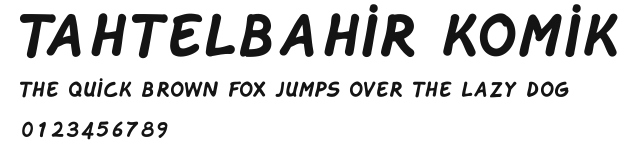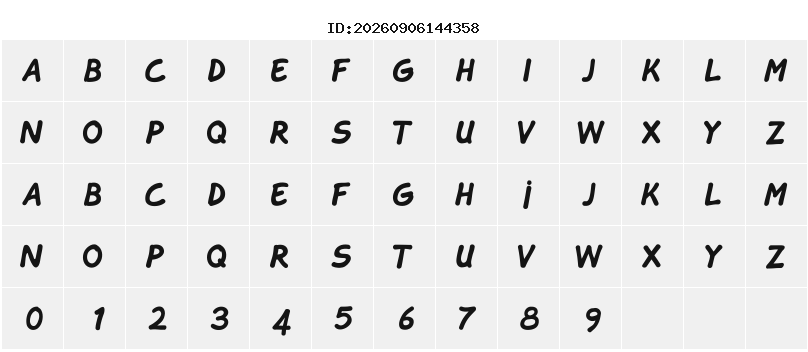
Tahtelbahir komik Preview
• Font Name: Tahtelbahir komik
• Designer: yavuz ozturk
• Manufacturer: TAHTELBAHİR STUDİO
About Tahtelbahir komik.ttf
Tahtelbahir komik.ttf is a modern, elegant sans-serif font designed for ultimate readability and visual harmony. Perfect for branding, headlines, web design, and print materials.